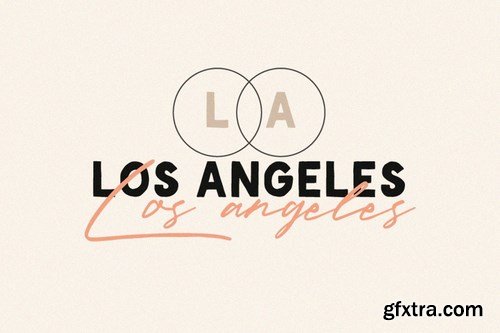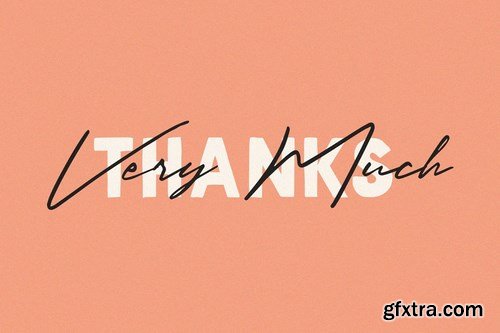
De Facto Zamosc is a sans font that we made by hand. This font is very beautiful, especially if combined with a script font. But, don't worry, because we provide script fonts that are suitable for de facto fonts. And this is free without any additional costs.